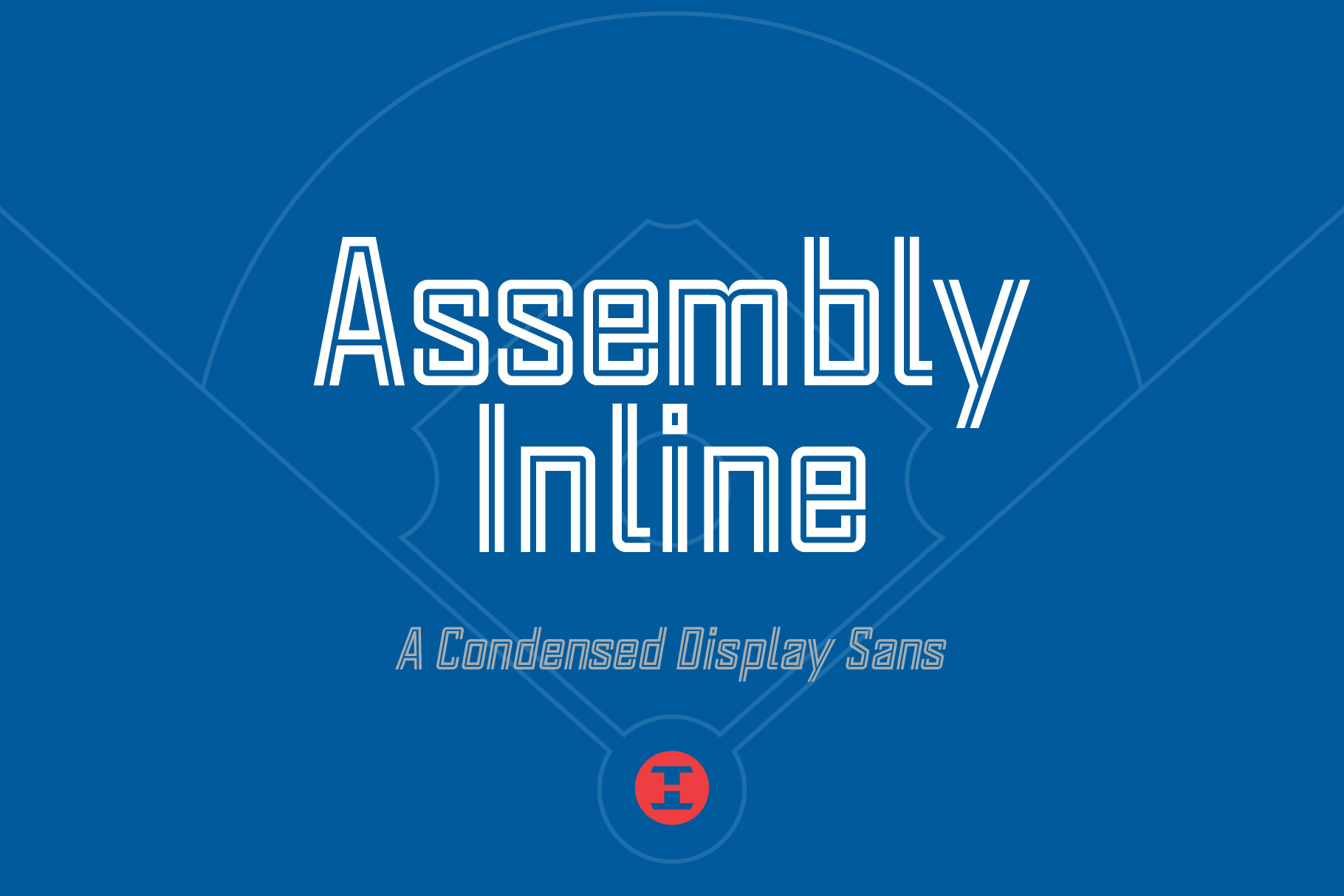
Assembly Inline - Display Font
Assembly Inline is a condensed typeface inspired by vintage lettering found in athletics. It also pairs and aligns perfectly with Assembly Regular - https://crmrkt.com/VVbaqW - allowing for layering colors. The Assembly Inline font also includes a few alternate glyphs to add some variations in your applications.
- 2 Styles - Regular and Italic
- Standard English Alphabet - Uppercase, Lowercase
- Numerals, Currency Symbols, Standard Punctuation, Diacritics